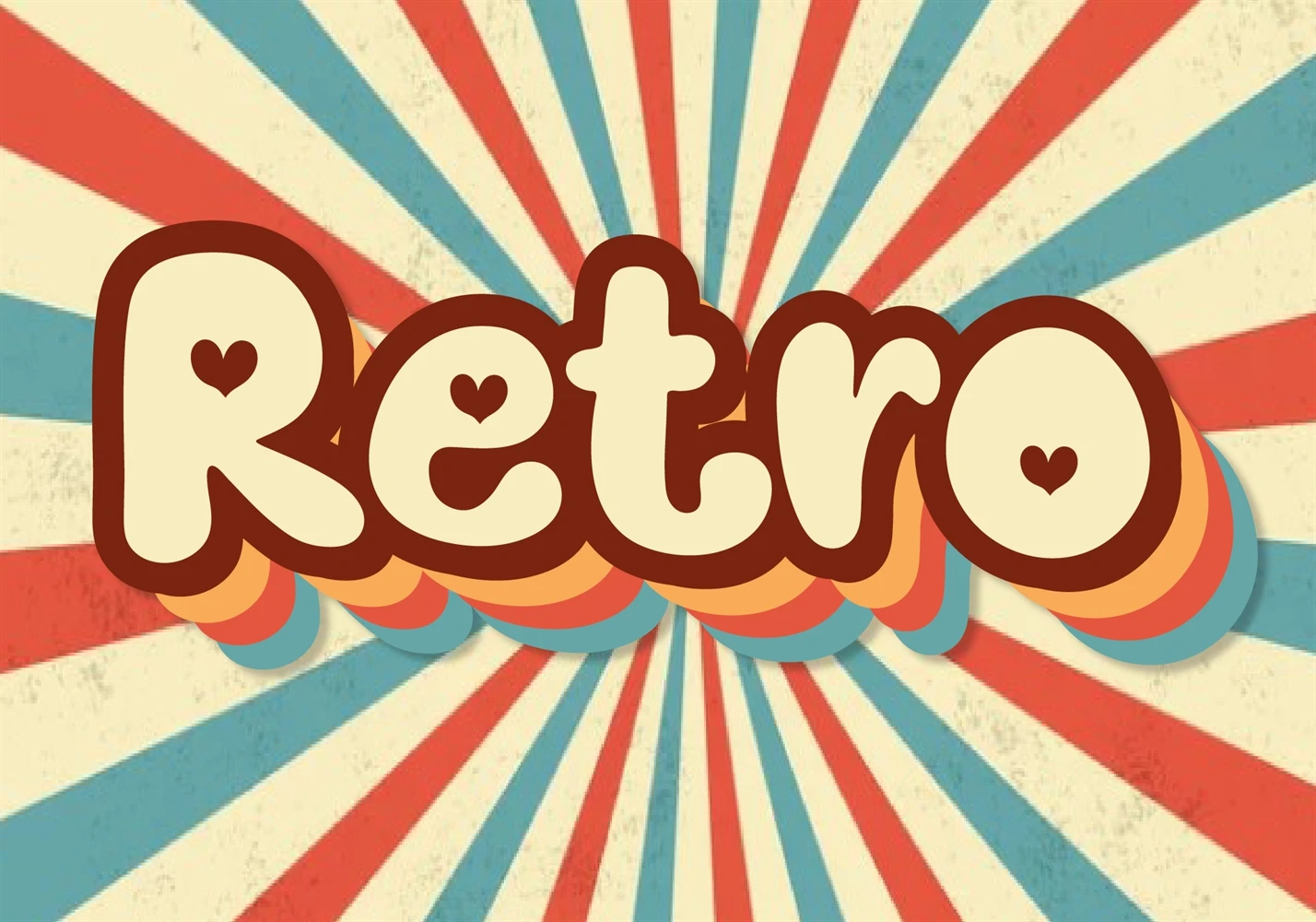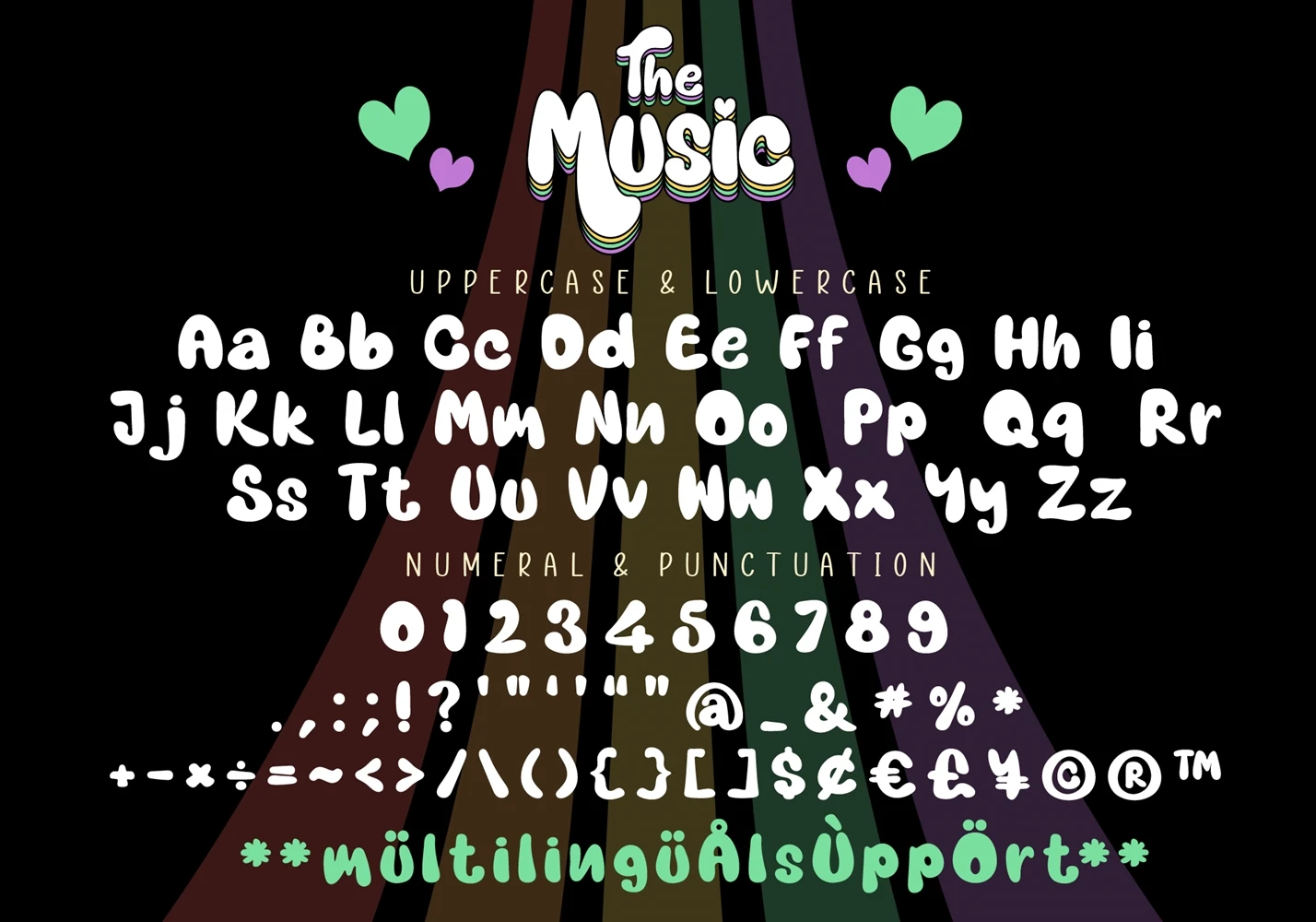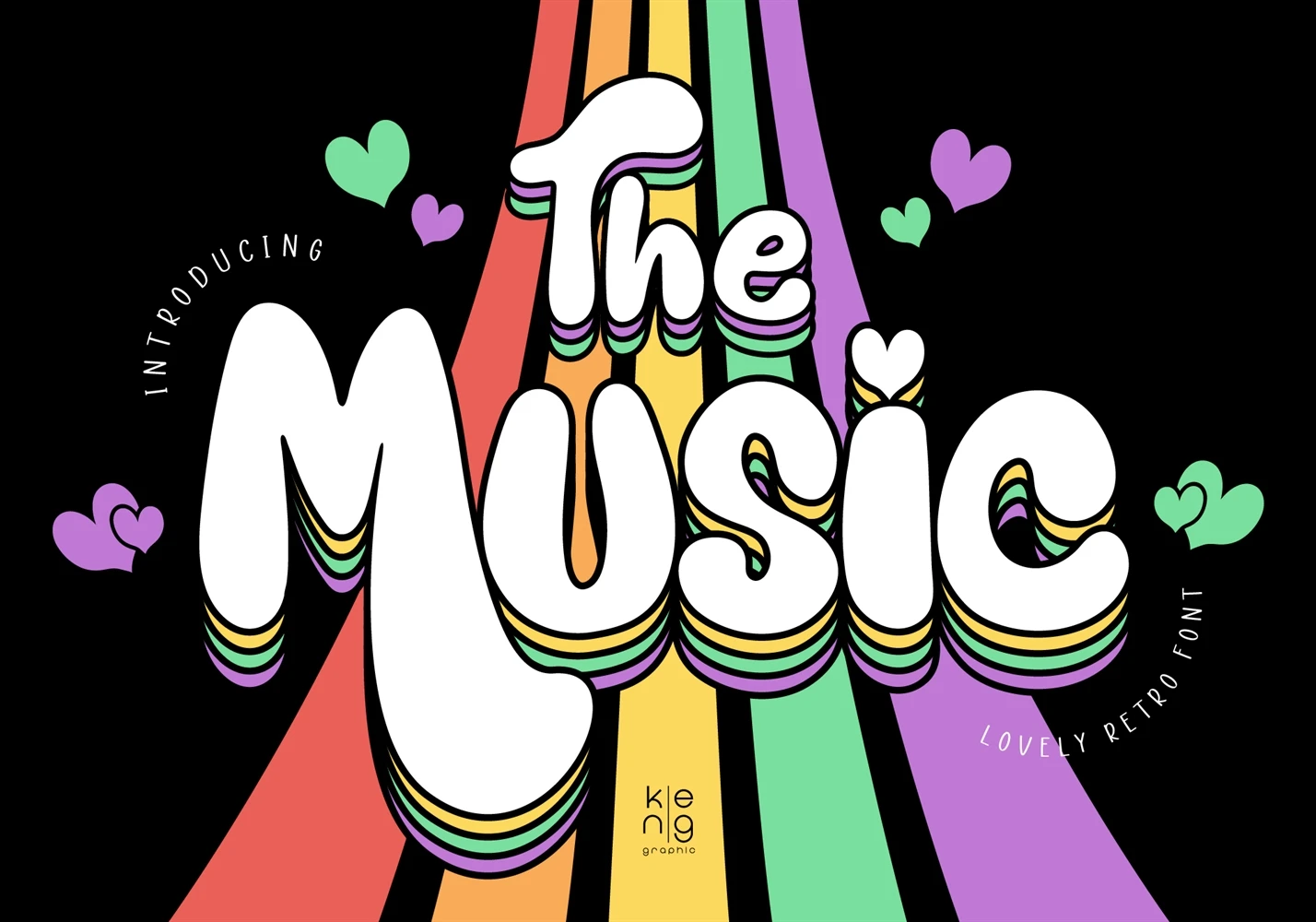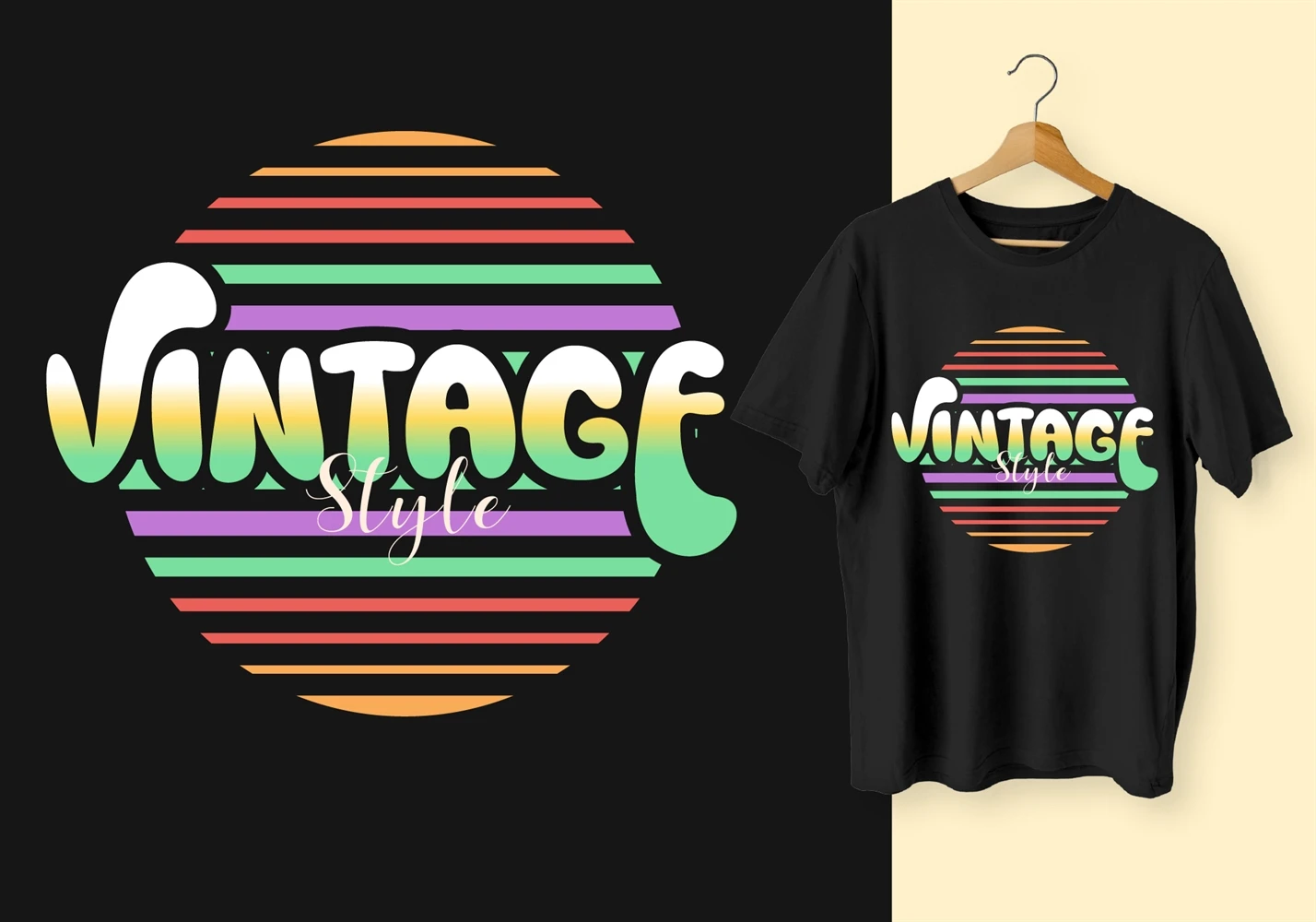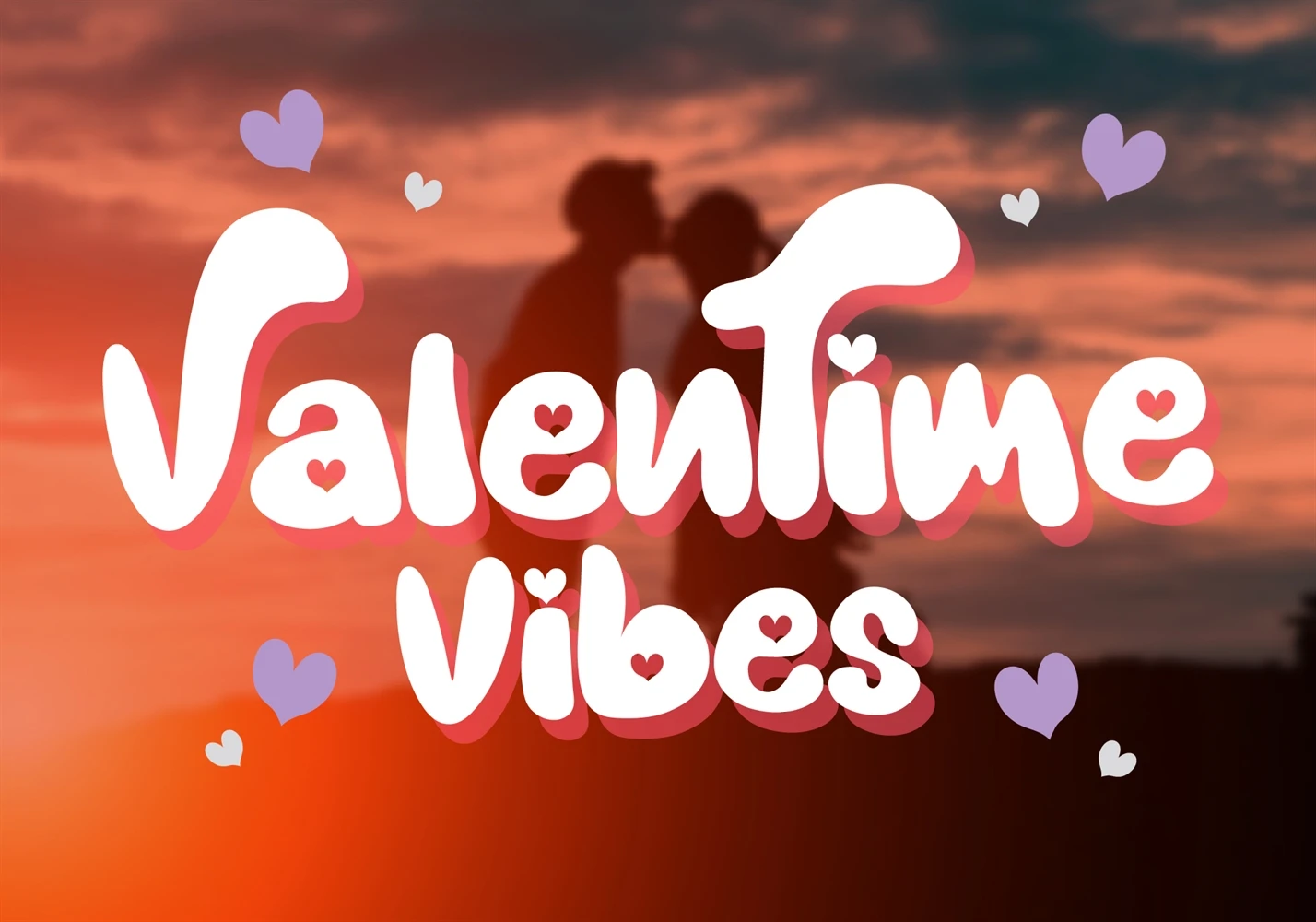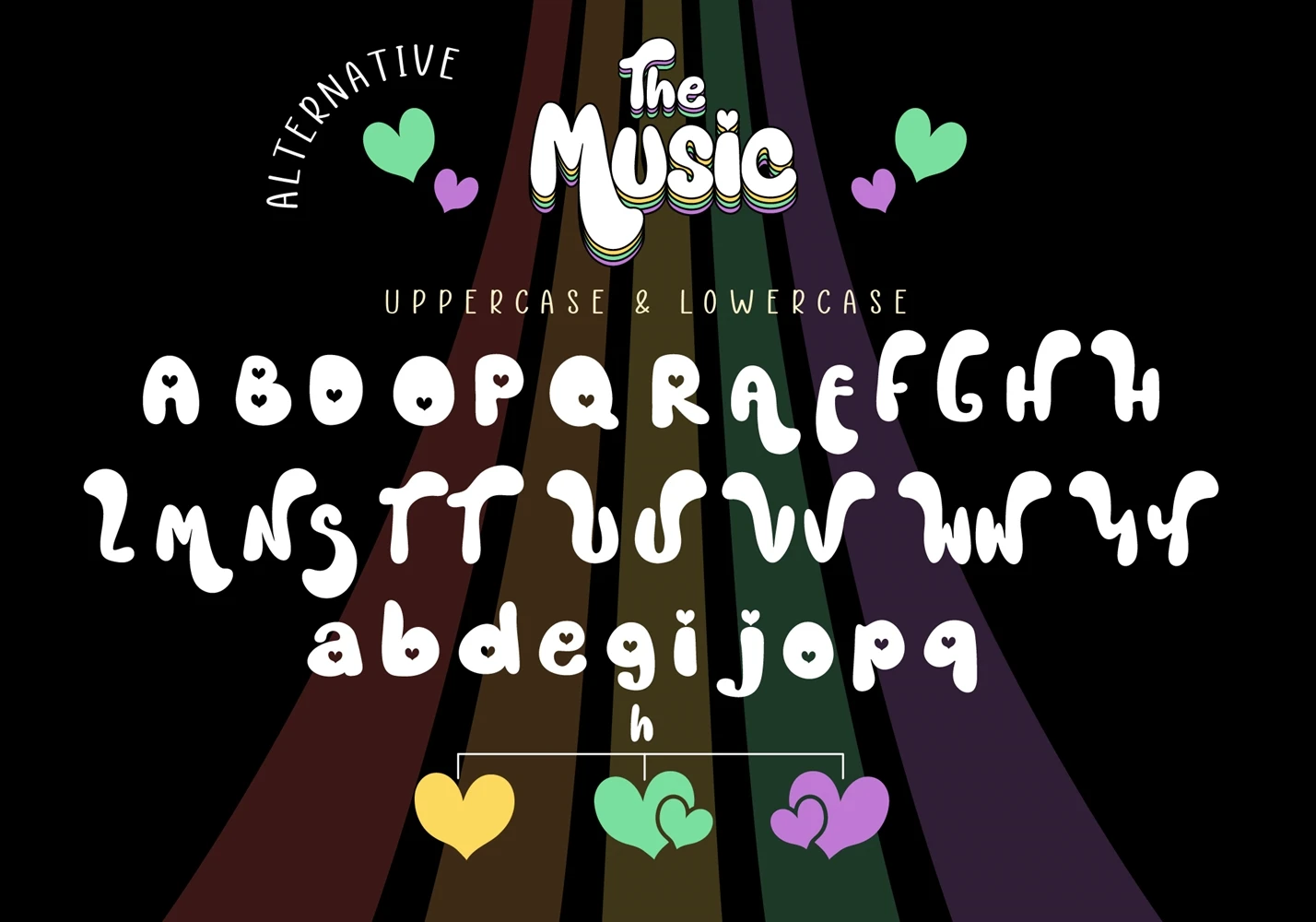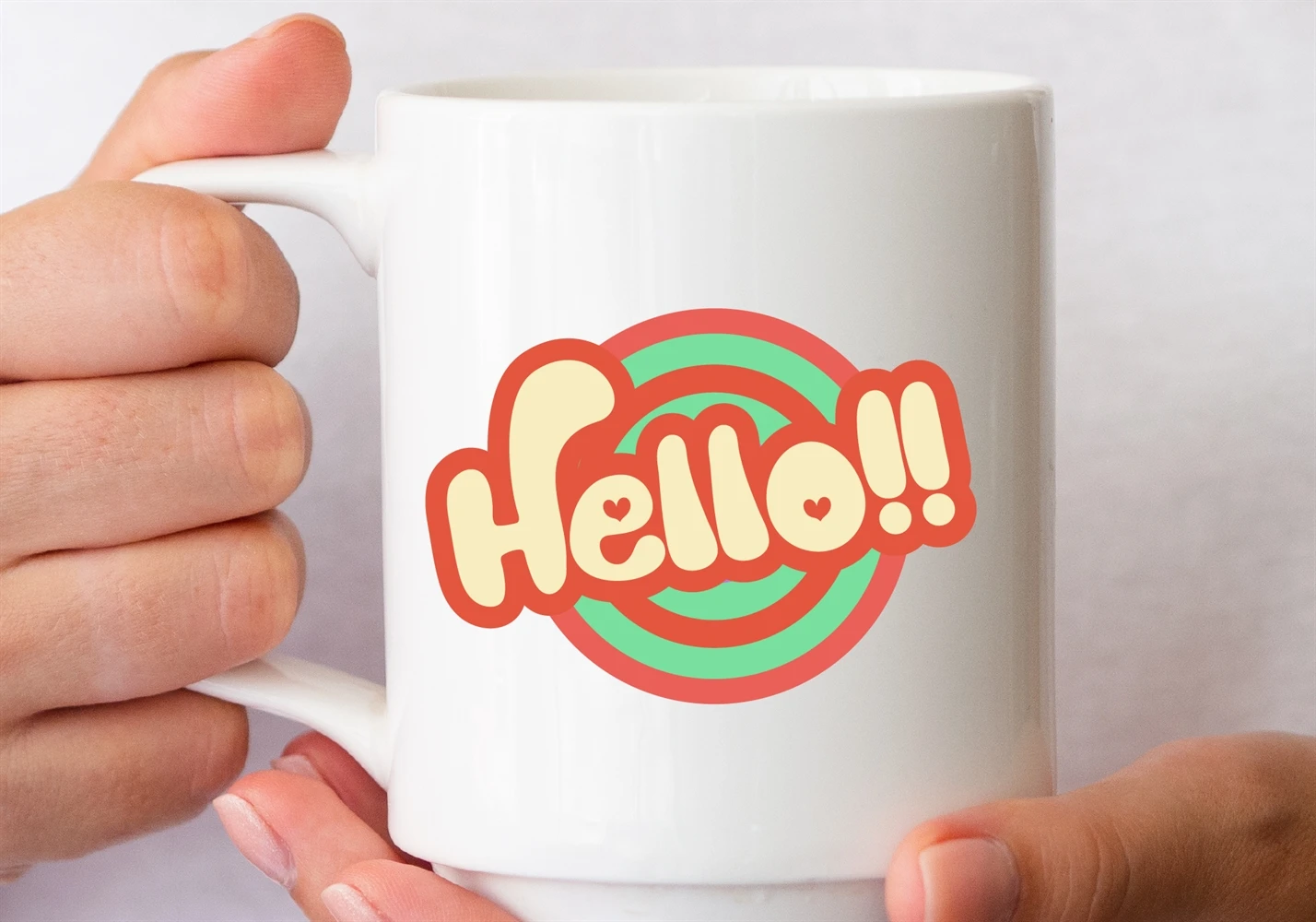
The Music is a lovely display font with a retro style. It will work great for comic book style, online games, cards, love shirts, posters, movie titles, eye-catching social media posts, or anything that requires youthfulness and courage.
The Music Font